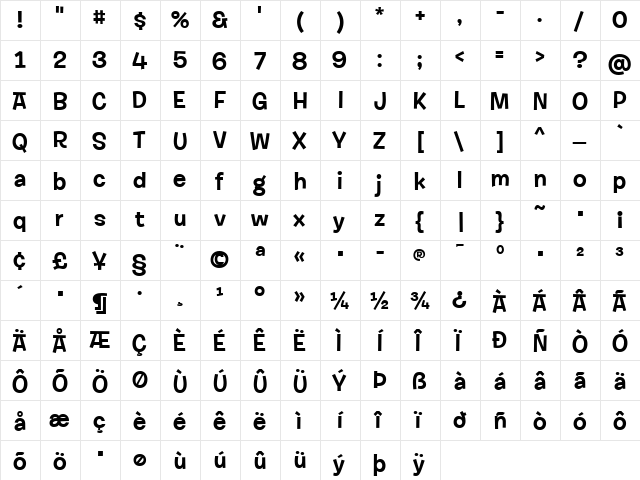
ShagExpert-Lounge Regular
| Foundry | House Industries |
| Designer | Tal Leming |
Design Context for ShagExpert-Lounge Typeface
ShagExpert-Lounge takes a measured approach to typography — its balanced proportions and neutral character make it a reliable workhorse for both digital and print work.